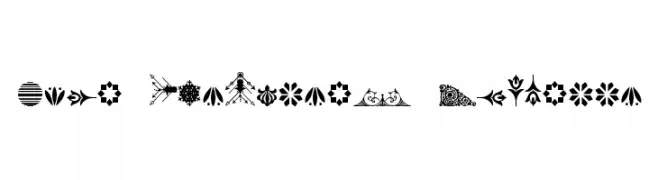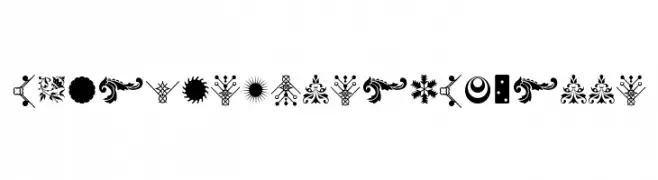
A whimsical collection of decorative symbols and playful icons with a hand-drawn aesthetic.
Ornamental dingbat font with diverse decorative motifs.
Ornamental dingbat font with diverse decorative symbols.